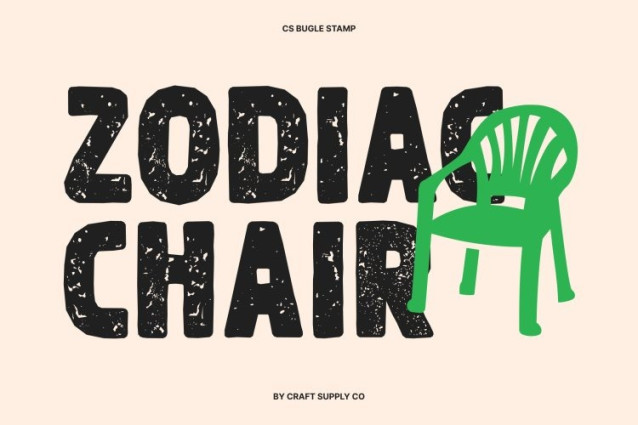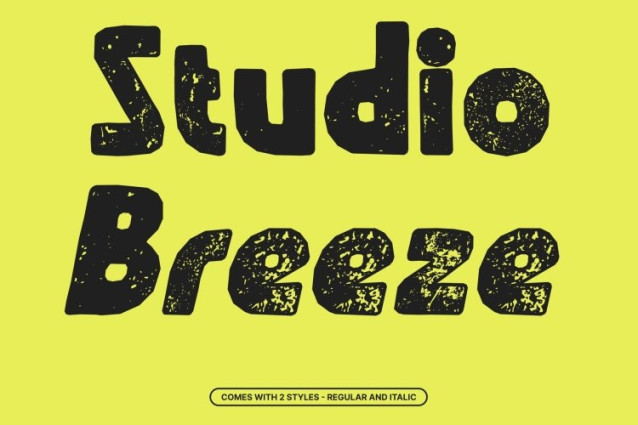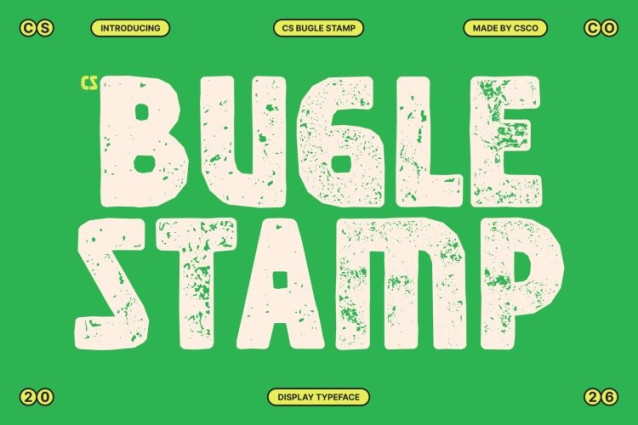
CS Bugle Stamp Font
CS Bugle Stamp Font is a bold sans-serif typeface that captures the vibrant spirit of 1980s design. Built with thick, solid letterforms and clean geometric lines, it reflects the energetic and confident style of retro typography. The addition of a stamped texture introduces a subtle vintage effect, giving the font a handcrafted, nostalgic character while maintaining a modern edge.
Energetic and Eye-Catching Design
The strong, bold strokes of this font make it highly visible and impactful. Its clean sans serif construction keeps the design fresh and contemporary, while the textured stamp effect adds depth and personality. This balance of clarity and texture creates typography that feels both dynamic and visually engaging.
Perfect for Nostalgic and Retro-Inspired Designs
This is an excellent choice for projects that want to evoke the bold aesthetic of the 1980s. From retro posters and event promotions to branding for vintage-inspired products, the font delivers a striking and memorable look. Its bold forms and textured character help designs stand out while reinforcing a nostalgic visual atmosphere.
Bold Retro Style for Creative Projects
Whether used in logos, packaging, advertising, or digital graphics, this font brings strong retro energy to any composition. The combination of solid letterforms, 80s-inspired styling, and subtle stamp texture makes it a versatile typeface for designers looking to blend nostalgia with modern creativity.